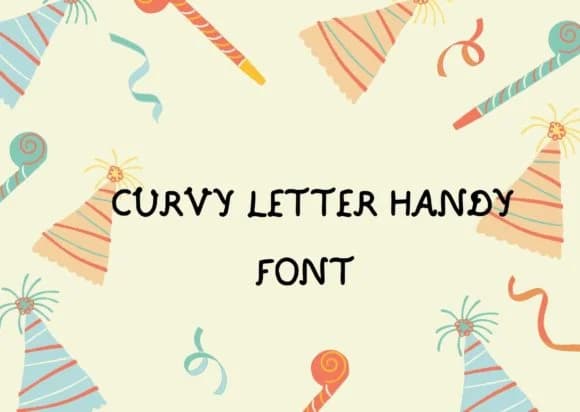
1 / 7About Curvy Sans Handy Font
You're designing a wedding invitation suite with custom monograms, and you want letterforms that feel both refined and approachable. Curvy Sans Handy from CREATILORY is a slab serif that balances playful warmth with genuine elegance, giving your work that handcrafted quality without sacrificing polish or clarity at any scale.
This font excels wherever personality matters as much as professionalism. Think luxury stationery sets with embossed details, custom greeting card collections that sit on a shelf and catch the eye, craft-focused apparel labels for small brands, and boutique skincare packaging that communicates quality through type alone. Its curved strokes soften what could be stark geometry, making letterforms feel inviting while the slab serifs ground the design with confidence. The consistent weight and accessible letterforms mean you can use it confidently across multiple touchpoints without it feeling out of place.
What makes this typeface stand out is its performance at large display sizes. A single word set as a headline or focal point reads with the same character and clarity as body copy, which speaks to how well considered the letterforms are. The multiple weights give you real control over hierarchy through boldness rather than struggling to size it properly. That flexibility proves especially valuable for designers working across both print and digital projects. Grab Curvy Sans Handy on Creative Fabrica and integrate it into work where warmth and sophistication need to balance.
Curvy Sans Handy Font is a slab serif font that shines as a display or heading face. Pair it with a clean sans-serif or serif font for body text β the contrast creates a clear hierarchy while the two styles stay balanced and easy to read.